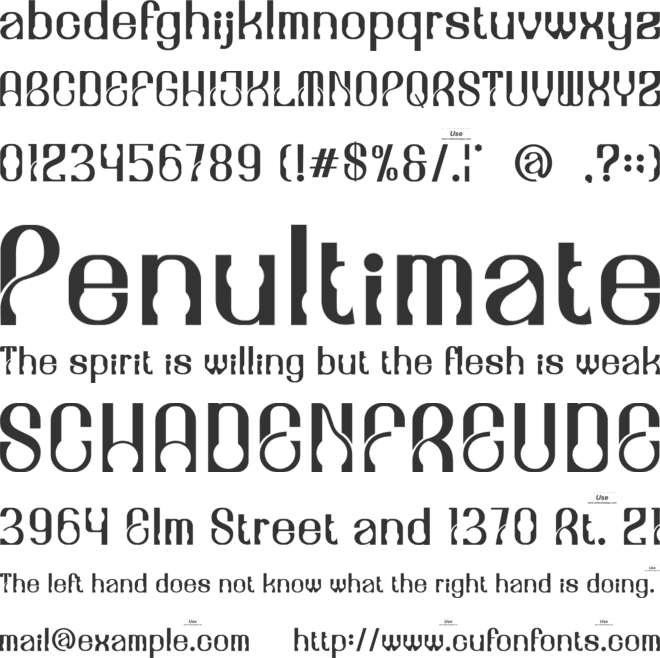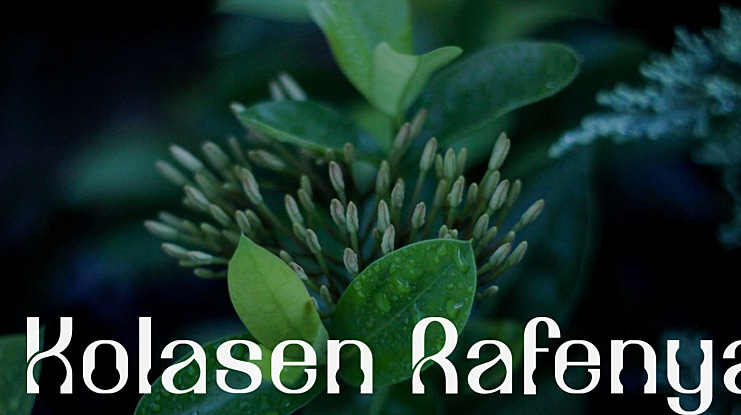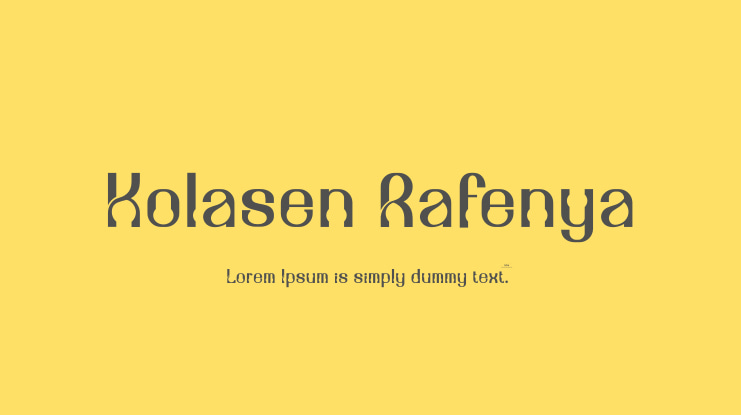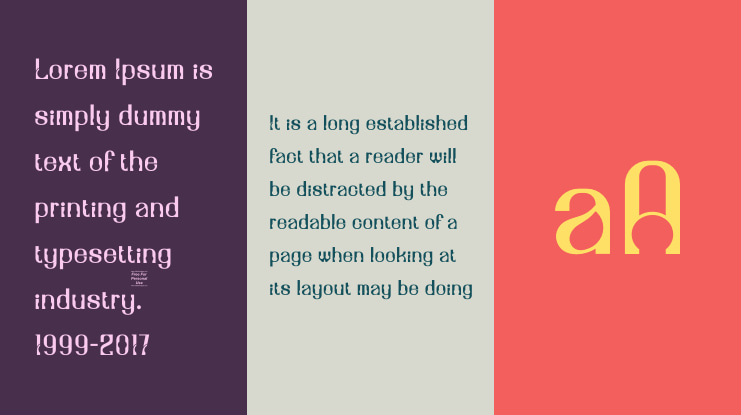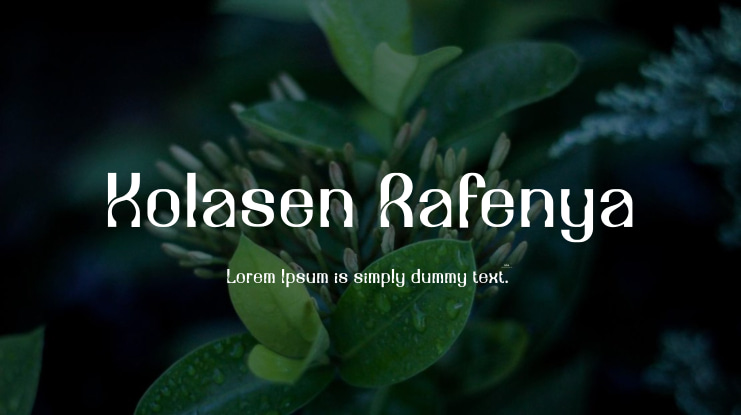
Kolasen Rafenya Font
Introducing Kolasen Rafenya display font is a modern, trendy, bouncy and cute display font. It has a unique character with wood theme. It is perfect to be combined with invitation card designs, company logos, movie titles, movie names, business cards, book titles, brand names and various other designs.